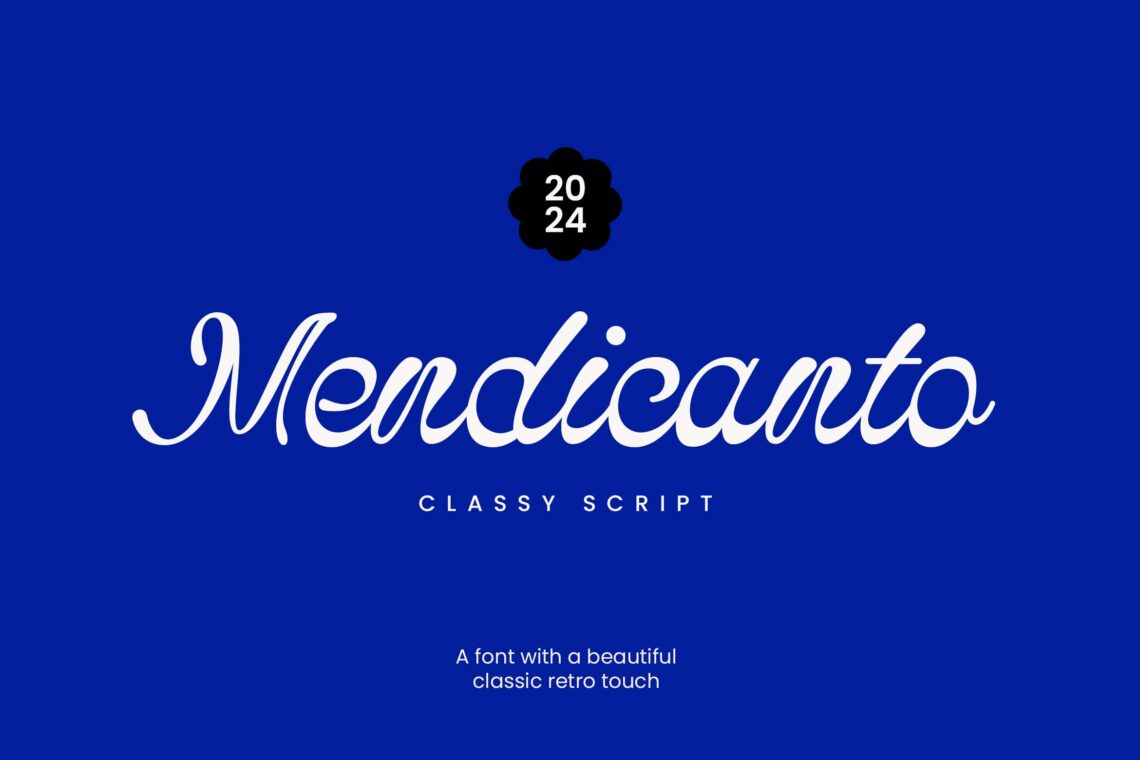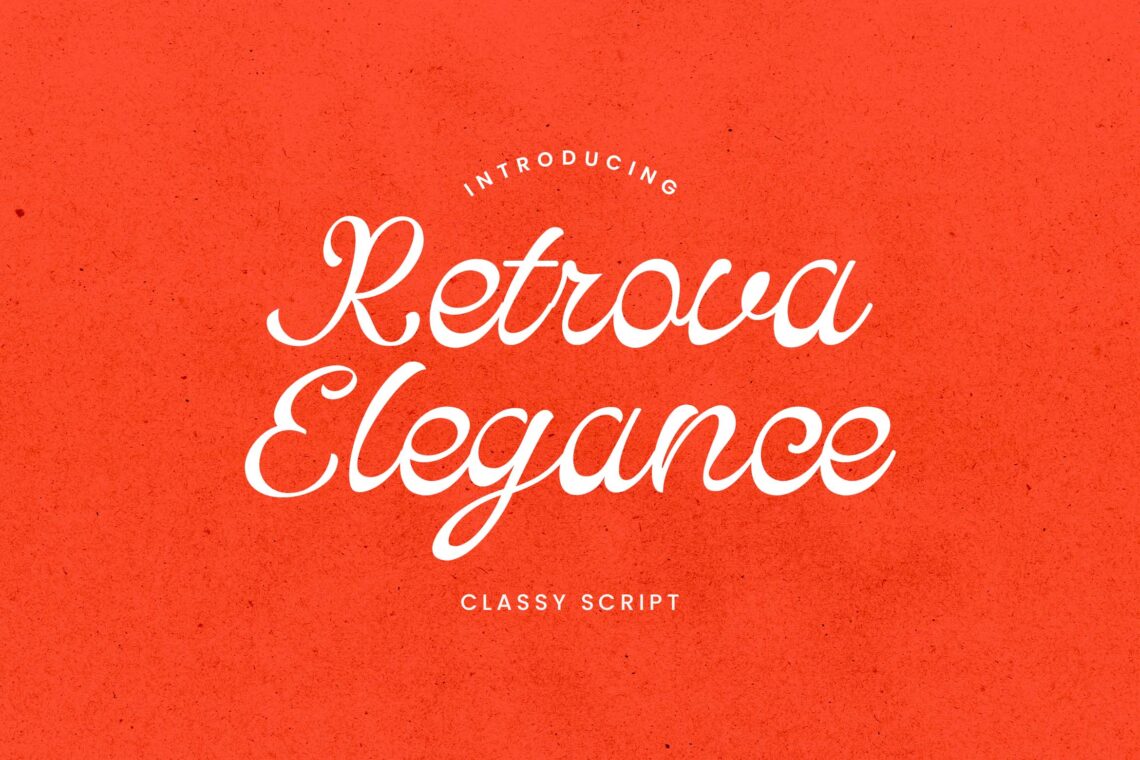
10 Best Script Font (update 2026)
The world of typography continues to evolve with new trends and exciting developments. One of the most enduring and versatile categories in typography is script fonts. These elegant, flowing typefaces are ideal for adding a personal, handwritten touch to designs, making them perfect for invitations, branding, logos, and much more.
The script font scene is no exception, with many designers favoring modern takes on traditional calligraphy. Whether you’re designing for a sophisticated brand or a creative project, choosing the right script font can elevate your work.
Latest Trending Script Font List
1. Prestige Legacy Font
The Prestige Legacy Elegant Classy Font is a timeless and sophisticated typeface designed to bring an air of refinement and luxury to any project. With its graceful curves, elegant strokes, and classic appeal, this font is perfect for high-end brands, luxury products, wedding invitations, or any design that requires a touch of class. Whether you’re working on logos, editorial design, or upscale marketing materials, the Prestige Legacy font adds an element of prestige and style. Its versatility and legibility, combined with its elegant flair, make it a must-have for projects that aim to make a lasting, sophisticated impression.
2. Romantika Barytone Font
The Romantika Barytone Classy Vintage Script Font is a beautifully crafted typeface that exudes elegance, romance, and timeless vintage charm. With its flowing, cursive letterforms and delicate curves, this font brings a sophisticated, handwritten touch to any design. Perfect for invitations, wedding stationery, luxury branding, or any project that calls for a blend of vintage flair and classy elegance, Romantika Barytone captures the essence of a bygone era while maintaining modern readability. Whether you’re designing a logo, a greeting card, or a stylish product label, this font adds an instant sense of refinement and nostalgia, making it ideal for any project seeking to evoke a sense of romance and classic beauty.
3. Retrova Elegance Font
The Retrova Elegance Classy Script Font is a stunning blend of vintage charm and modern sophistication, offering a perfect balance between elegance and boldness. With its flowing, cursive strokes and high-contrast letterforms, this font exudes a timeless, classy vibe, making it ideal for upscale branding, invitations, luxury packaging, and any design project that demands a touch of refined retro style. Whether you’re working on a wedding invitation, a high-end product label, or a modern logo with a nostalgic twist, Retrova Elegance adds an aura of grace and personality, effortlessly elevating your designs with its classy script and vintage allure.
4. Imperial Grandiose Font
The Imperial Grandiose Script Calligraphy Font is a majestic and refined typeface that combines classic calligraphy with opulent elegance. With its intricate, flowing strokes and regal flourishes, this font brings a sense of luxury and sophistication to any design. Perfect for high-end branding, royal invitations, upscale event stationery, and elegant signage, the Imperial Grandiose font conveys a sense of prestige and timeless beauty. Its ornate yet legible letterforms make it ideal for projects that demand a bold statement of elegance and grandeur, adding an exquisite touch to everything from wedding invitations to premium product packaging.
5. Medicanto Font
The Medicanto Classy Script Font is a sophisticated and refined typeface that blends modern elegance with a touch of vintage charm. With its graceful, flowing letterforms and delicate curves, this font is perfect for a wide range of design projects, from luxurious branding to invitations, greeting cards, and high-end marketing materials. Its fluid, calligraphic style evokes a sense of professionalism and class, making it an ideal choice for businesses, creatives, and event planners who want to convey a message of refinement and quality. Medicanto Classy Script effortlessly elevates any project, offering a stylish, timeless appeal that captures attention while maintaining readability.
6. Disperesthetic Font
The Disperesthetic Script Font is a modern, artistic typeface that combines bold, expressive letterforms with a fluid, handwritten style. With its unique blend of edgy, irregular strokes and elegant curves, this font adds a contemporary, creative flair to any design. Ideal for branding, social media graphics, invitations, or any project that requires a personal yet bold touch, Disperesthetic Script brings an air of individuality and modernity. Its distinctive, flowing characters make it perfect for projects that aim to stand out, offering both charm and legibility while delivering a fresh, artistic vibe to your designs.
7. Daneworch Font
The Daneworch Classy Script Font is a sophisticated and timeless typeface that seamlessly blends elegance with modern flair. Its flowing, cursive letterforms and graceful curves make it an ideal choice for luxury brands, upscale invitations, and premium marketing materials. Whether you’re designing wedding stationery, high-end logos, or sophisticated product labels, Daneworch Classy Script adds an aura of refinement and charm to any project. This font’s perfect balance of beauty and readability ensures it stands out while maintaining an air of professionalism and class, making it an essential asset for any design in need of a touch of elegance.
8. Mandalina Font
The Mandalina Classical Script Font is a stunning blend of timeless elegance and sophisticated script design. With its graceful, flowing letterforms and delicate flourishes, this font exudes a sense of refined beauty, making it perfect for high-end branding, luxury invitations, wedding stationery, and more. Its classical style adds a vintage charm while maintaining modern readability, making it ideal for projects that require both elegance and a touch of nostalgia. Whether you’re designing a premium logo, an elegant greeting card, or a refined product label, Mandalina Classical Script elevates your designs with its timeless charm and sophisticated appeal.
9. Amandine Monoline Font
The Amandine Monoline Modern Handwritten Font is a sleek, contemporary typeface that combines the authenticity of handwritten style with a clean, monoline aesthetic. Its simple yet stylish letterforms make it an ideal choice for modern branding, invitations, websites, and social media graphics. With its smooth, consistent strokes and approachable vibe, Amandine brings a personal and contemporary touch to any project, while maintaining readability and clarity. Perfect for minimalist designs or projects that need a casual yet polished look, Amandine Monoline adds a fresh, modern charm that’s sure to captivate your audience.
10. Caralance Signature Font
The Caralance Signature Script Font is a stylish and sophisticated typeface that captures the essence of a handwritten signature with its smooth, flowing strokes and elegant curves. Designed to evoke a sense of personal touch and authenticity, this font is perfect for luxury brands, wedding invitations, personal branding, and upscale marketing materials. Its graceful, fluid letterforms ensure readability while adding a refined, artistic flair to your designs. Whether you’re creating a professional logo, a heartfelt greeting card, or high-end stationery, Caralance Signature Script elevates your project with its elegant and timeless appeal.